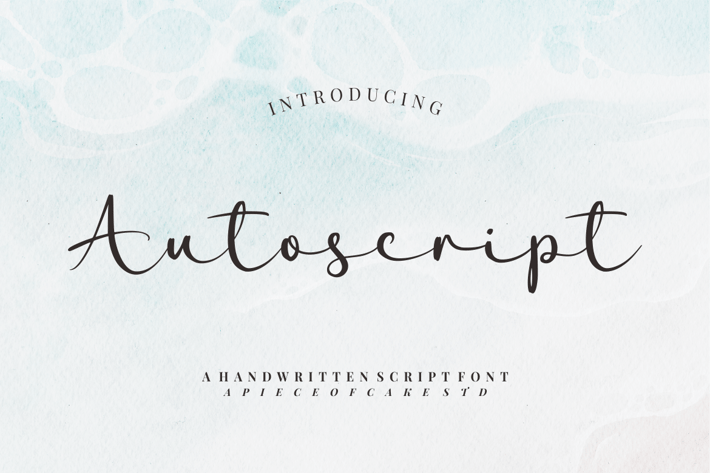
Autoscript - A Script Font
Introducing, Autoscript is a stylish and gorgeous handwritten script font suitable for your design project needs, such as; wedding themes, valentine's themes, social media posts, quotes, overlays on images, tagline logos, posters, print needs, website banners, and more.